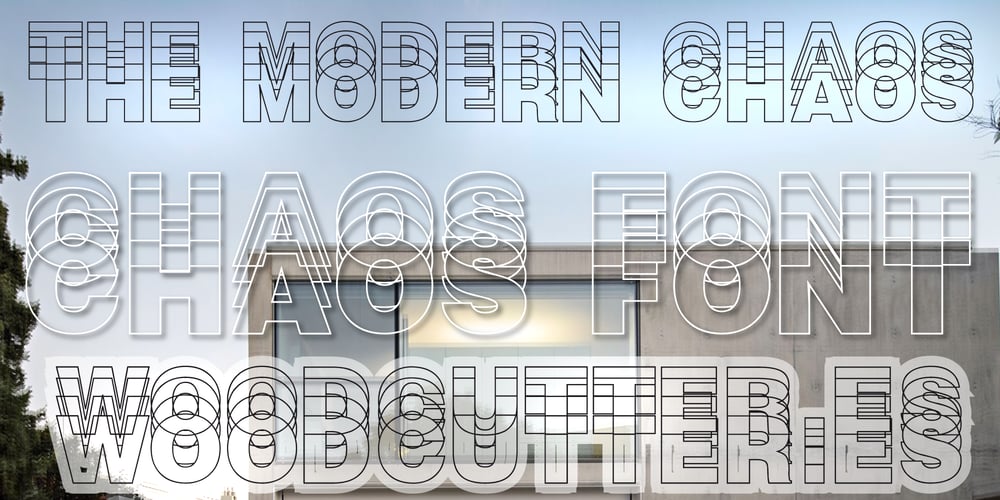
The Modern Chaos
The Modern Chaos font
The Modern Chaos Font Family was designed by Jordi Manero and published by Woodcutter. The Modern Chaos contains 1 styles and family package options. “The Modern Chaos” is a chaotic uppercase font where each letter is repeated with overlapping contours, creating a readable visual chaos. This design provides a sense of organized disorder, perfect for projects aiming to stand out for their creativity and originality. The letters, though seemingly disordered, maintain coherence that facilitates reading, making “The Modern Chaos” an ideal choice for striking titles and modern graphics. With a distinctive and avant-garde style, this font is perfect for those looking to break from the conventional.–Uppercase